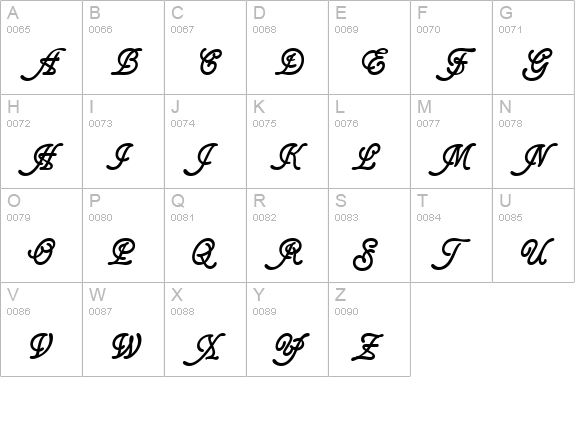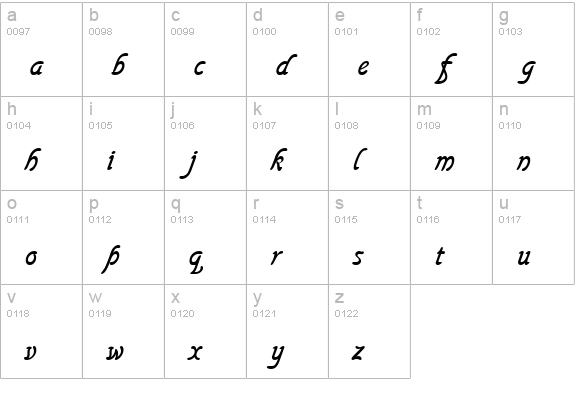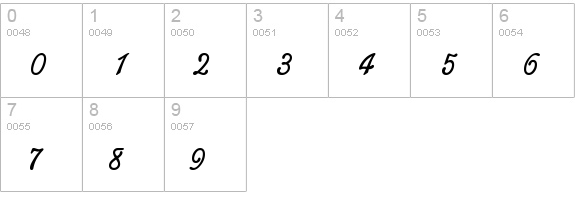
Script-G760-Regular is the standard, neutral variant in the Script typeface family \xE2\x80\x94 well suited to general body text, paragraphs, and standard typographic work.
Script-G760-Regular is a visually stunning and versatile font that is sure to add a touch of elegance and sophistication to any design project. Its graceful and flowing script style captures the essence of handwritten calligraphy, making it perfect for wedding invitations, greeting cards, logos, and more. This font features smooth and consistent lines, making it easy to read and visually appealing. Its timeless and classic design ensures that it will never go out of style, making it a great choice for both modern and traditional designs. One of the best things about Script-G760-Regular is that it is available for free download at FontsMarket.com. This means that designers and enthusiasts alike can easily access this beautiful font and incorporate it into their projects without any cost. Whether you are a professional designer looking to add a touch of elegance to your work or an individual wanting to create stunning personalized designs, Script-G760-Regular is the perfect font for you. Its versatility, beauty, and availability make it a must-have in your font collection. So go ahead and download Script-G760-Regular for free at FontsMarket.com and start creating visually captivating designs today!